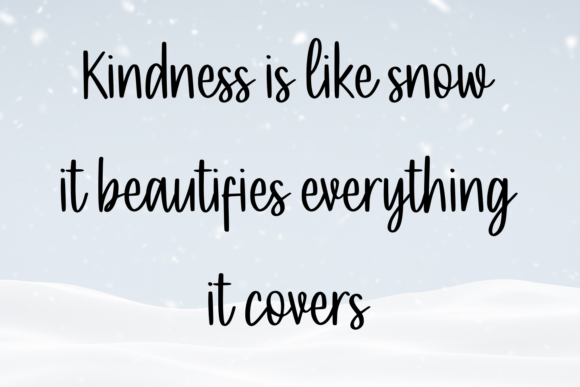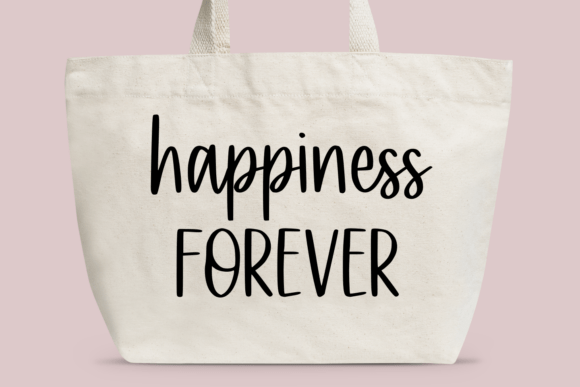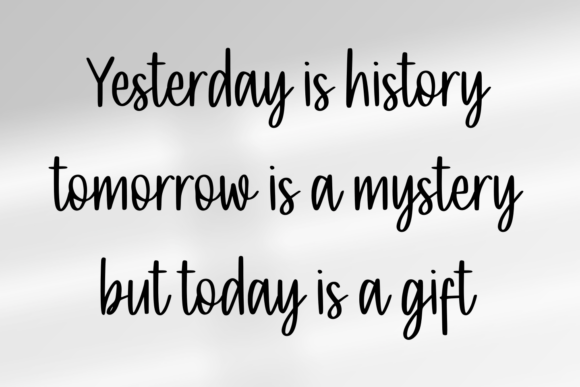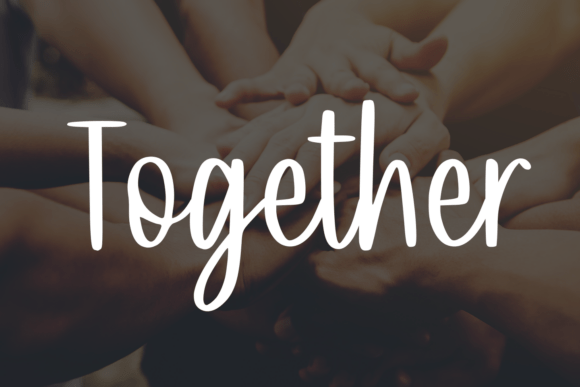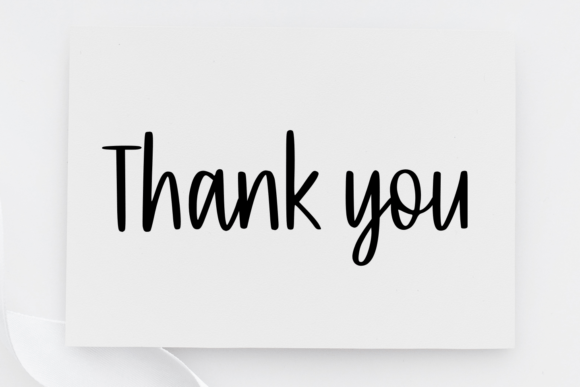
Introducing Handship Font: The Perfect Blend of Simplicity and Elegance
Are you tired of using generic fonts that lack personality? Do you want to add a touch of warmth and authenticity to your designs? Look no further than Handship Font, a simple yet elegant handwritten script font that brings a personal touch to your creative projects.
What is Handship Font?
Handship Font is a beautifully crafted handwritten script font that is designed to capture the feel of genuine handwriting. Its clean, natural strokes and simple letterforms make it perfect for a wide range of design projects, from logos and invitations to greeting cards and everyday design projects.
The Characteristics of Handship Font
So, what makes Handship Font so special? Here are just a few of its key characteristics:
- Clean and Natural Strokes: Handship Font features clean, natural strokes that give it a warm and organic feel. The font’s strokes are smooth and fluid, making it perfect for designs that require a personal touch.
- Simple yet Elegant: Handship Font is a simple font that exudes elegance. Its simple letterforms make it easy to read, while its elegant strokes add a touch of sophistication to any design.
- Handwritten Feel: Handship Font has a genuine handwritten feel that makes it perfect for designs that require a personal touch. Whether you’re creating a logo, invitation, or greeting card, Handship Font is sure to add a touch of warmth and authenticity.
Uses of Handship Font
Handship Font is a versatile font that can be used for a wide range of design projects. Here are just a few ideas to get you started:
- Logos: Handship Font is perfect for creating logos that require a personal touch. Its clean, natural strokes and simple letterforms make it easy to read and recognize.
- Invitations: Whether you’re creating a wedding invitation, birthday invitation, or any other type of invitation, Handship Font is a great choice. Its elegant strokes and handwritten feel make it perfect for formal and informal events.
- Greeting Cards: Handship Font is also great for creating greeting cards. Its warm and personal feel makes it perfect for birthdays, holidays, and other special occasions.
- Everyday Design Projects: Handship Font can also be used for everyday design projects, such as brochures, flyers, and social media graphics. Its clean and simple letterforms make it easy to read, while its elegant strokes add a touch of sophistication.
Why Choose Handship Font?
So, why choose Handship Font over other fonts? Here are just a few reasons:
- Unique and Authentic: Handship Font has a unique and authentic feel that sets it apart from other fonts. Its handwritten strokes and simple letterforms make it perfect for designs that require a personal touch.
- Easy to Read: Handship Font is easy to read, making it perfect for designs that require a clear and concise message.
- Versatile: Handship Font is a versatile font that can be used for a wide range of design projects. Its clean and simple letterforms make it easy to use in different contexts.
In conclusion, Handship Font is a simple yet elegant handwritten script font that brings a warm and personal touch to your designs. Its clean, natural strokes and simple letterforms make it perfect for a wide range of design projects, from logos and invitations to greeting cards and everyday design projects. Whether you’re a designer or crafter, Handship Font is a great choice for anyone looking to add a touch of authenticity and elegance to their creative work.